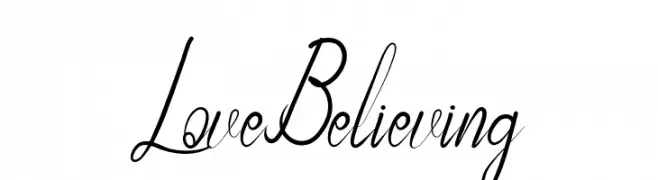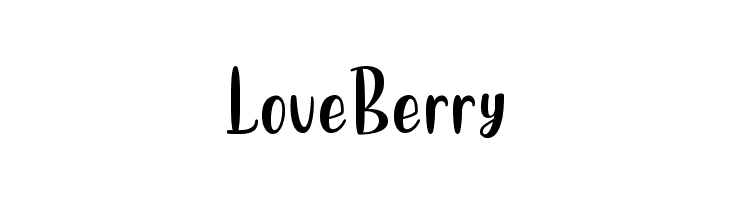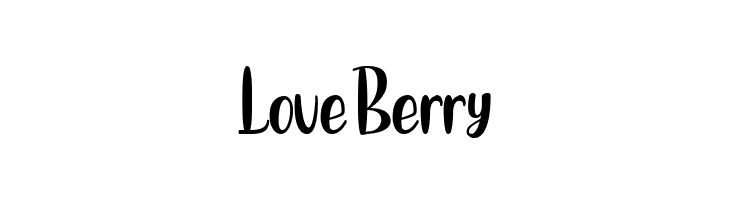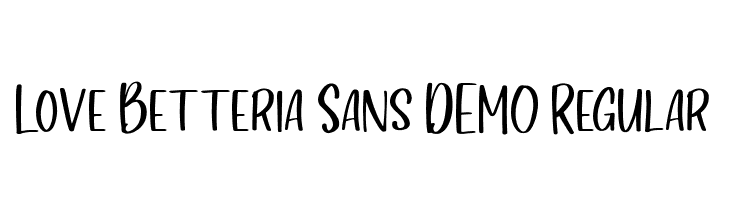
A graceful script font with fluid, connected strokes and elegant curves.
A playful and whimsical font with bold, flowing strokes and a lively appearance.
A playful, handwritten-style font with bold, rounded characters.
A playful, handwritten font with bold, irregular strokes and whimsical details.
A playful, handwritten font with bold, flowing strokes and a casual aesthetic.
An elegant and fluid script font with a handwritten feel.
A romantic, cursive font with elegant loops and swashes.
A bold, playful font with a bohemian and vintage flair.
A bold, playful font with rounded characters and heart-shaped accents.
An ornate, decorative font with diamond-framed letters, ideal for monograms.